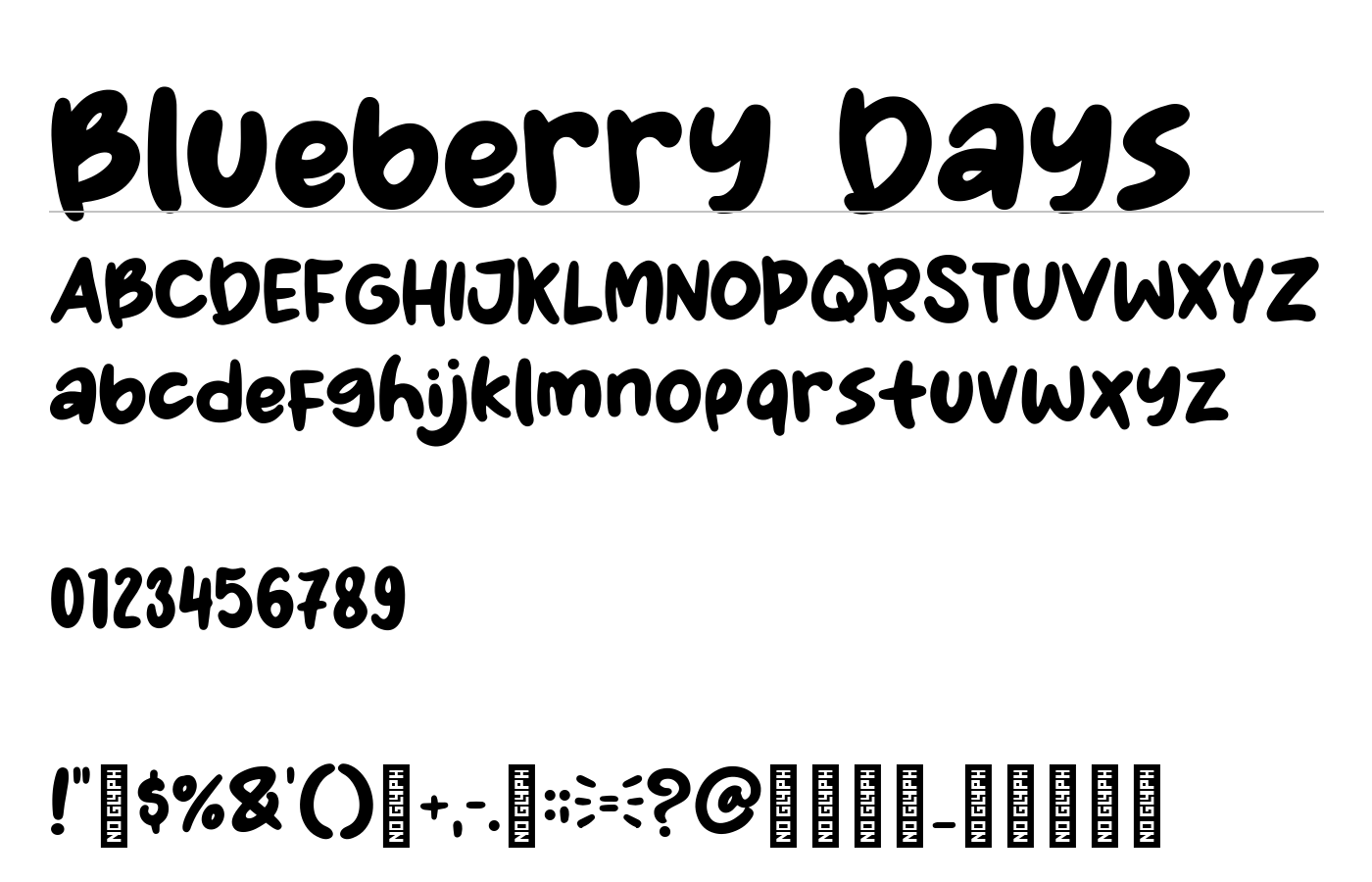
Blueberry Days is a playful and bold handwritten font with rounded, chunky letterforms that create a friendly and casual feel. Its balanced proportions and smooth strokes make it ideal for fun, approachable designs such as children's books, informal branding, and eye-catching headlines. This font adds a lively, personal touch wherever a warm, cheerful vibe is needed.
Blueberry Days Font
About Blueberry Days Font
| Font family | Blueberry Days Font |
| Designer | Khurasan & Jalembe |